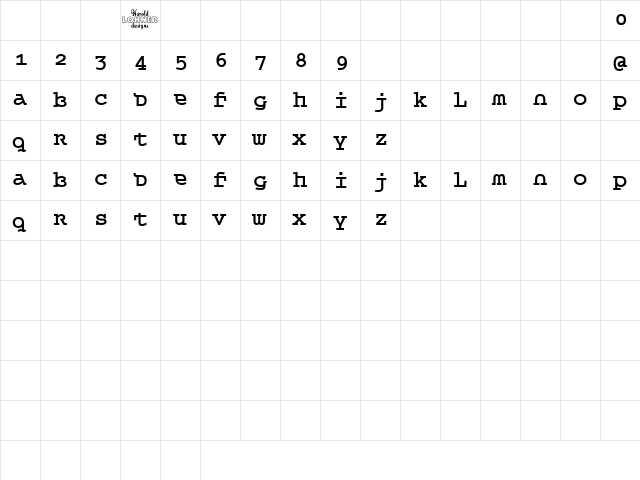
Queer Theory BoldTrial Font Preview
Queer Theory BoldTrial
Design Context for Queer Theory Typeface
Queer Theory is a composed and adaptable typeface that performs quietly and consistently across a wide range of design contexts. Its bold stroke weight gives it real presence on the page.